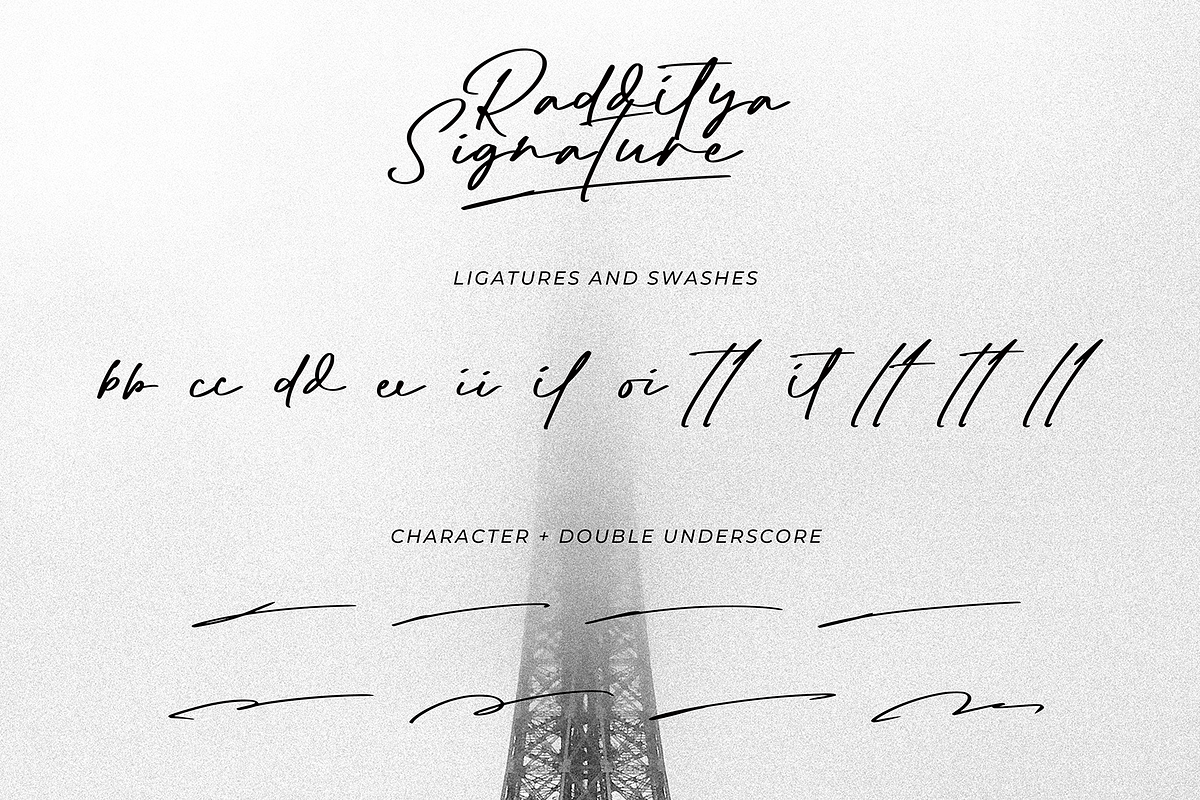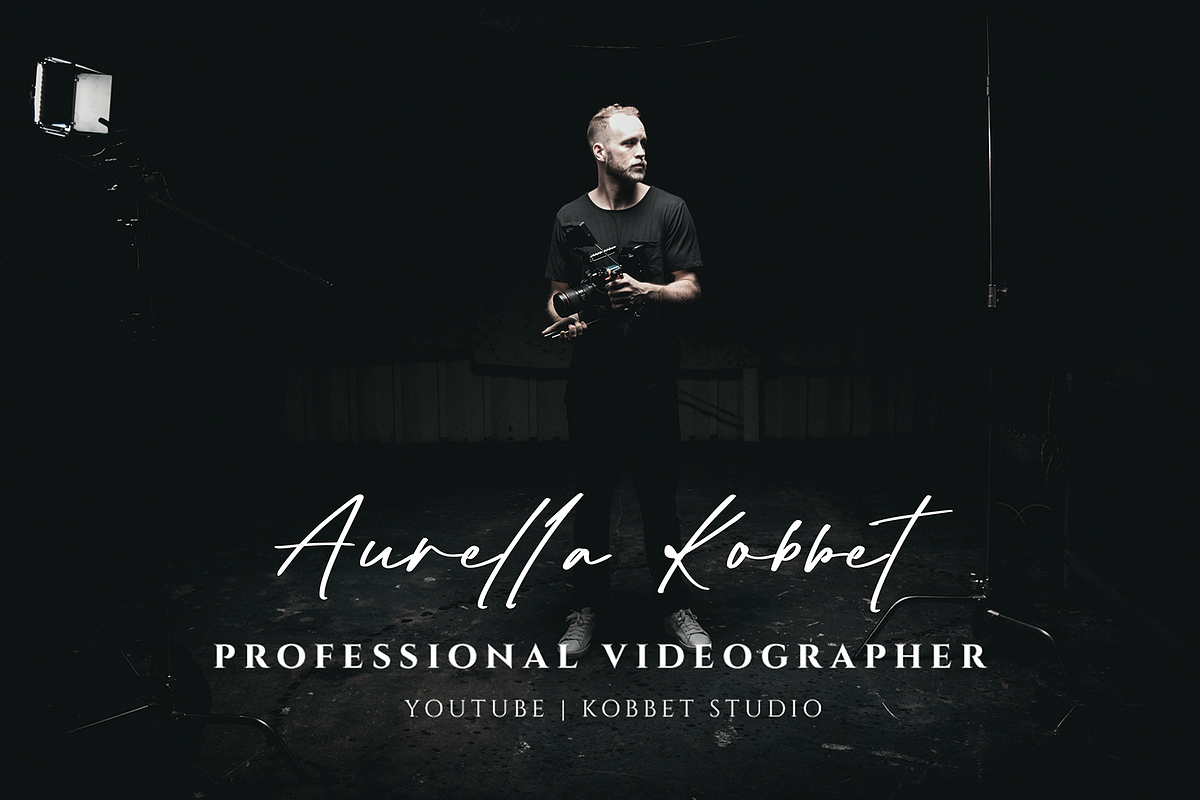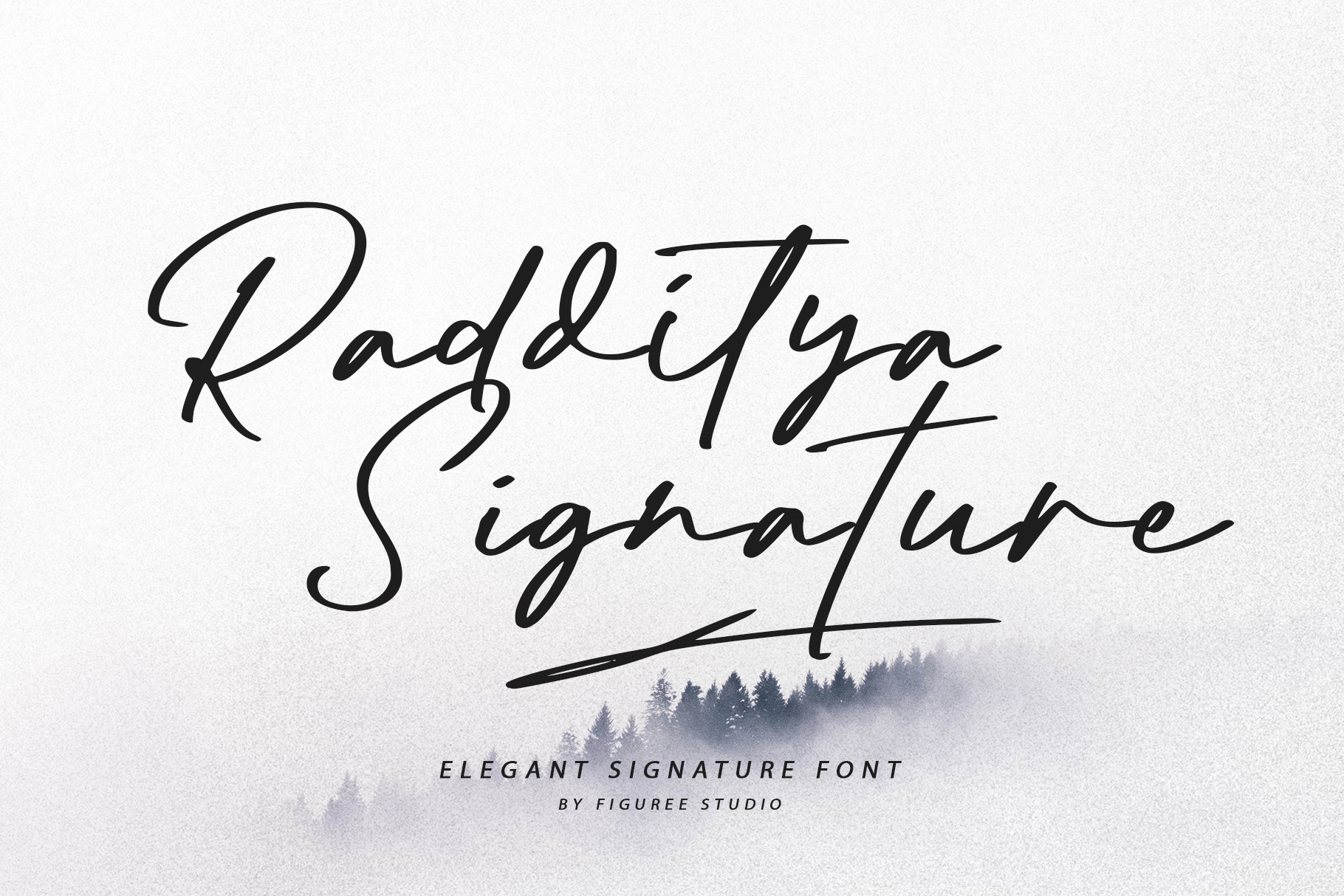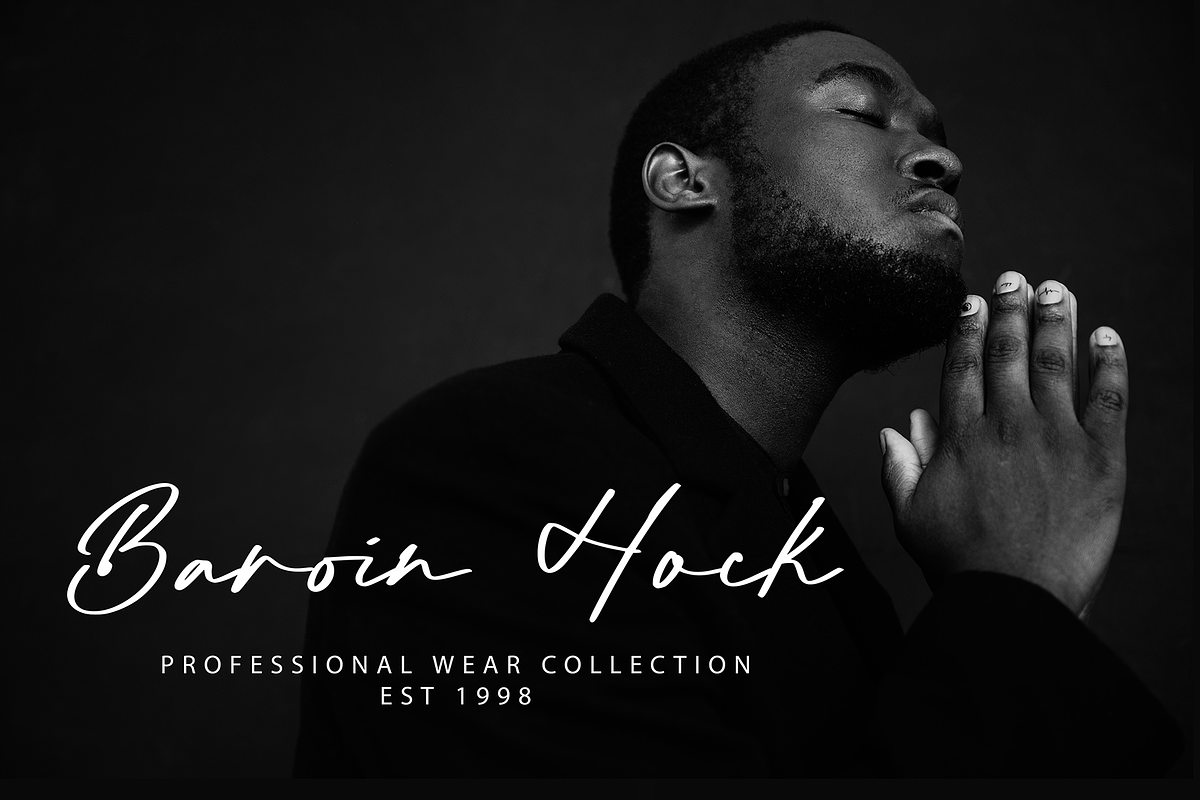
Radditya Signature - Elegant Font
Experience elegance and sophistication with Radditya Signature - the must-have signature font for any design project.
Crafted with meticulous attention to detail, Radditya Signature features sleek, flowing lines and unique flourishes that bring a touch of class to any design. With unique ligatures and swash characters, you have complete creative control to make your designs truly unique.
Whether you're designing a logo, crafting invitations, or creating social media posts, Radditya Signature adds a modern, elegant touch that will make your designs stand out from the crowd. Plus, with support for multiple languages, you can easily reach a global audience.
- Ligatures and swash